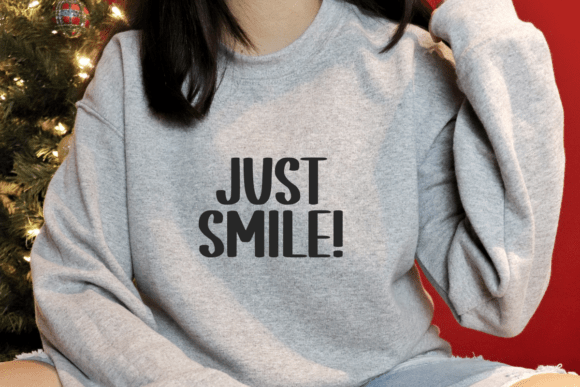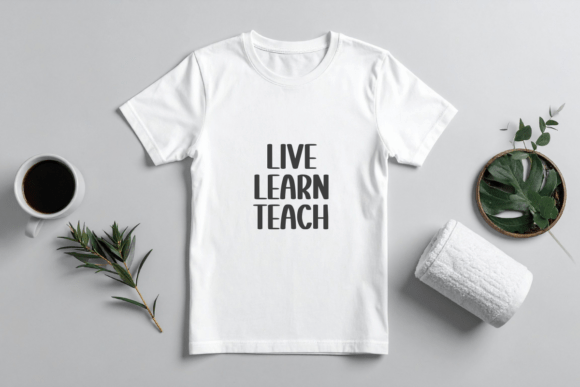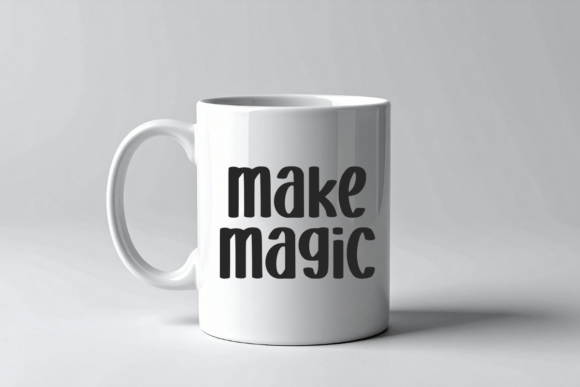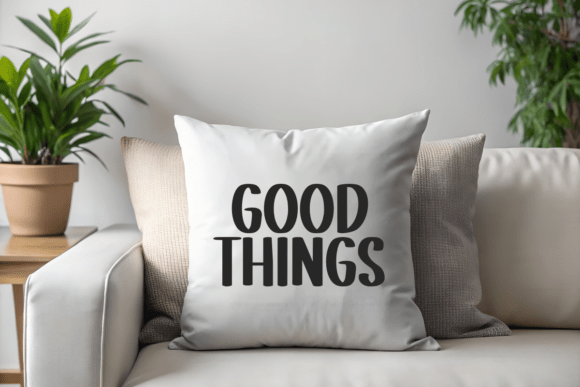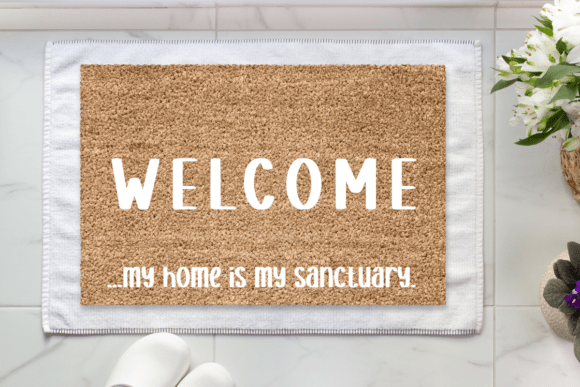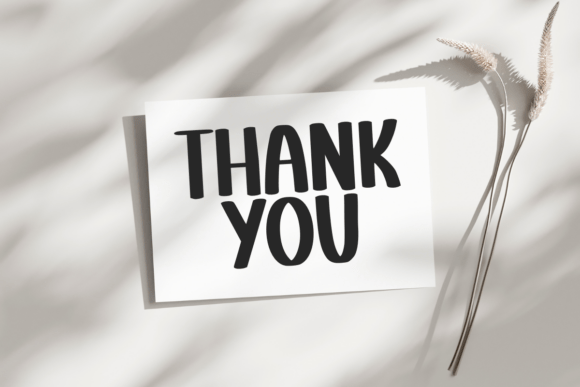
Introduction to Kindly Explore Font
Kindly Explore is a cute handwriting display font designed with a soft, friendly, and natural look.
This font brings a warm handcrafted feeling that works beautifully for craft projects, planners, stickers, kids’ worksheets, classroom printables, and DIY designs Its simple strokes and smooth curves make it easy to cut using Cricut and Silhouette, and perfect for crafting moms who love adorable handwritten styles.